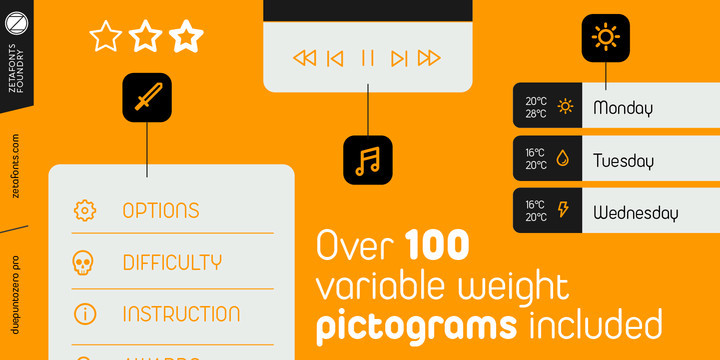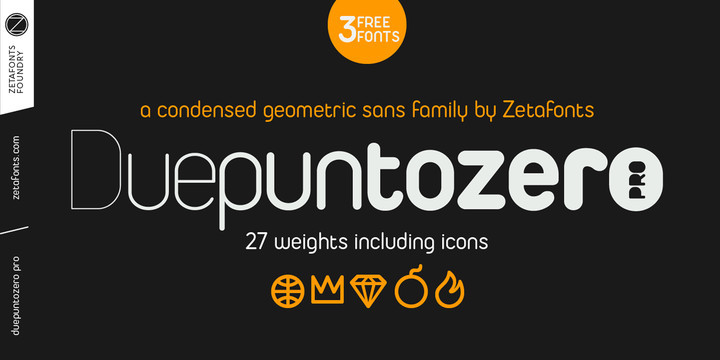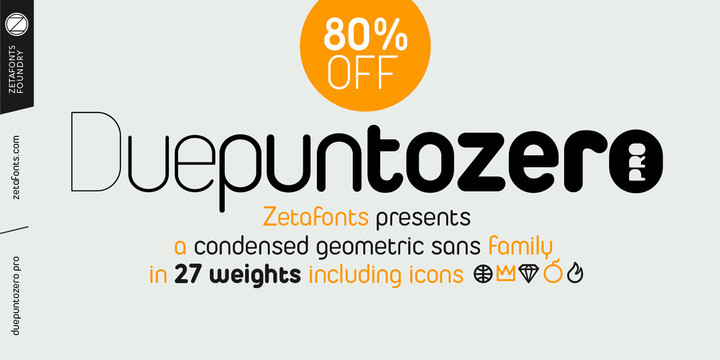
Duepuntozero Font Family
Created as a logo typeface in 2004 by Francesco Canovaro, Duepuntozero is one of Zetafonts classic typefaces. A monolinear sans serif typeface with rounded corners and condensed proportions, strictly based on modular geometric design, it was at first designed in five weights to be used as a condensed companion typeface to the rounded display family Arista. In 2019 the family was completely redesigned by the Zetafonts Team, expanding the original character set to include cyrillic and greek glyphs and adding four extra weights and italics to the original weight range. This restored and revamped version, named Duepuntozero Pro, also includes full Open Type features for positional figures, fractions and Small Caps.